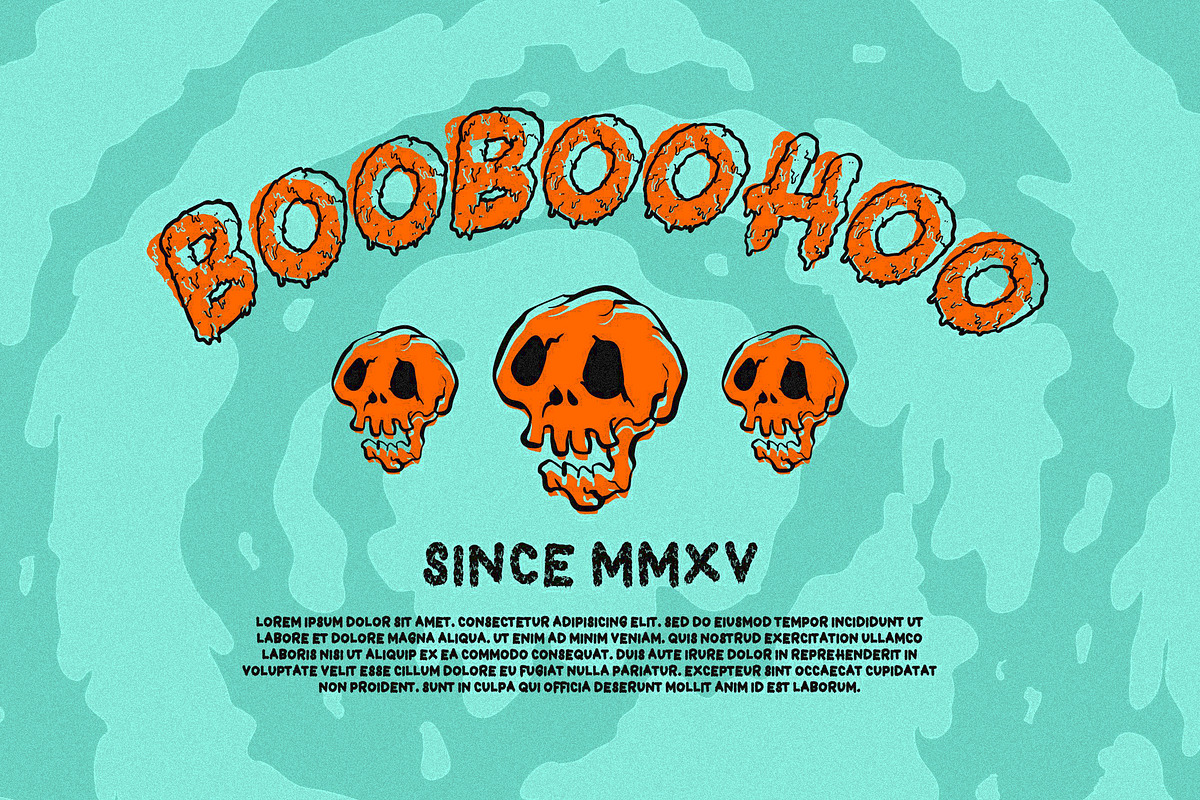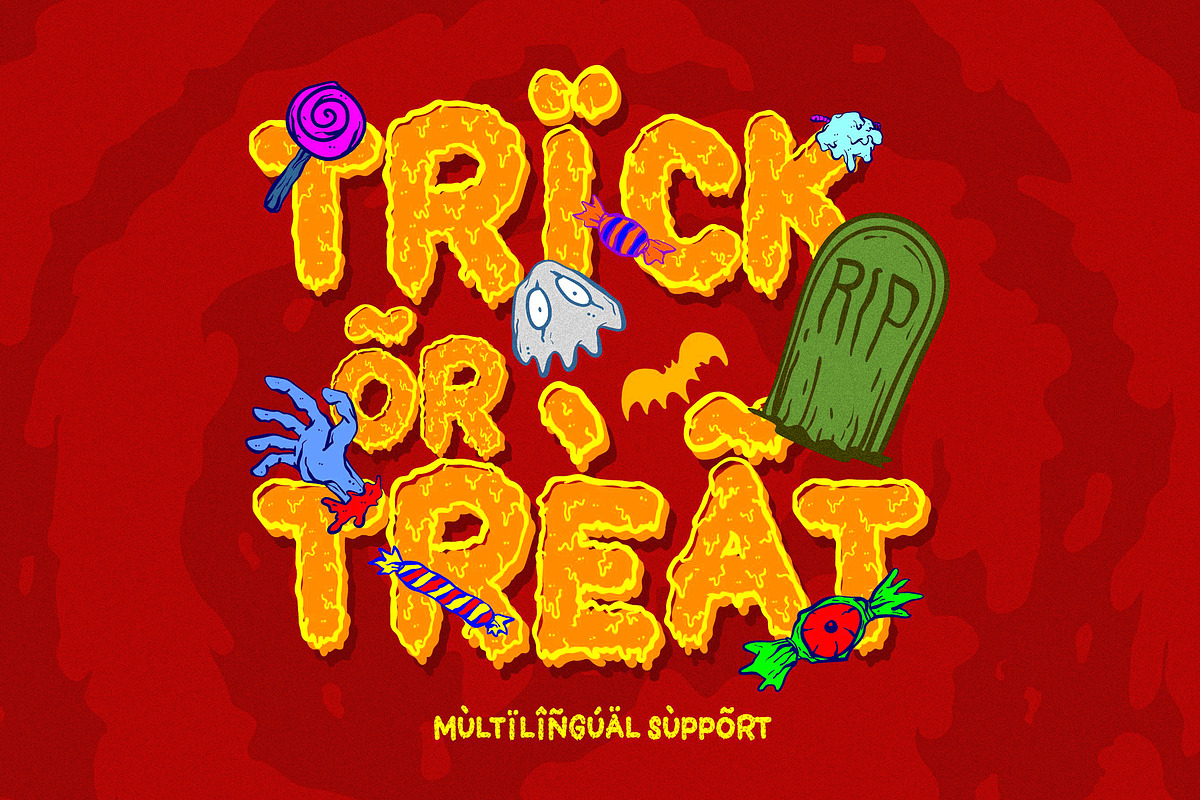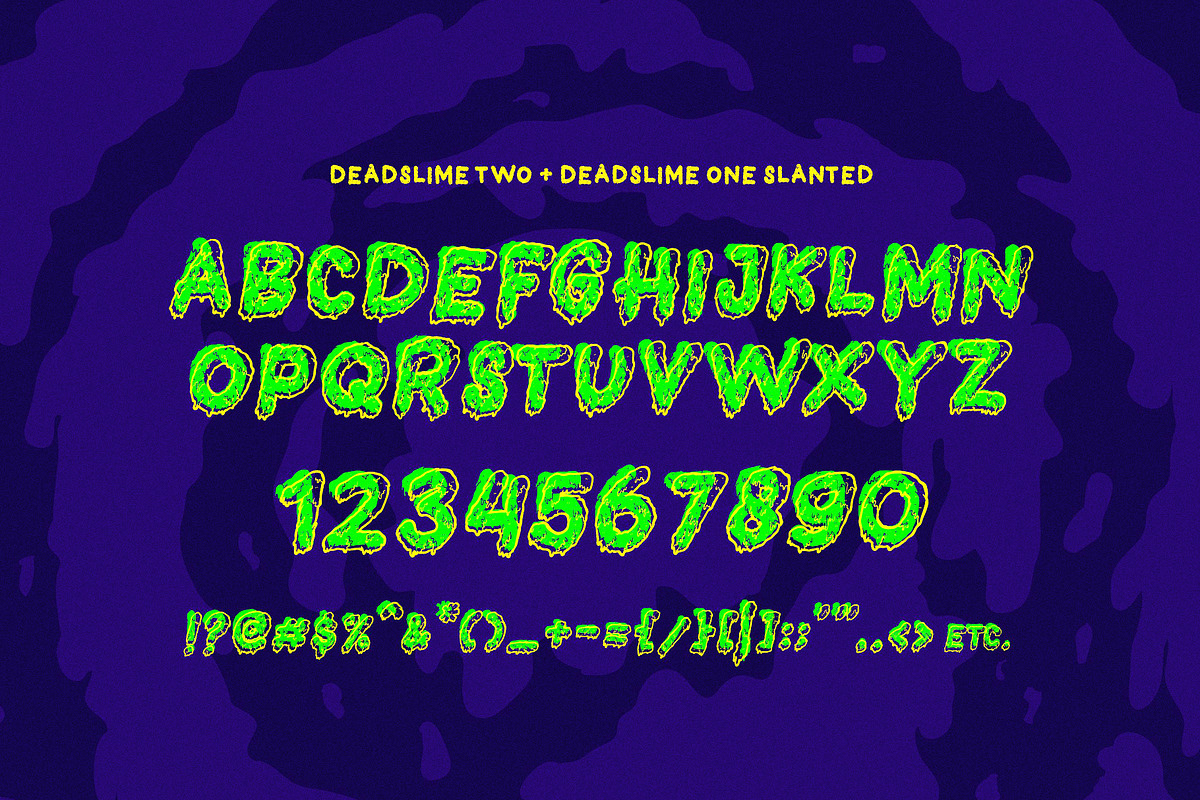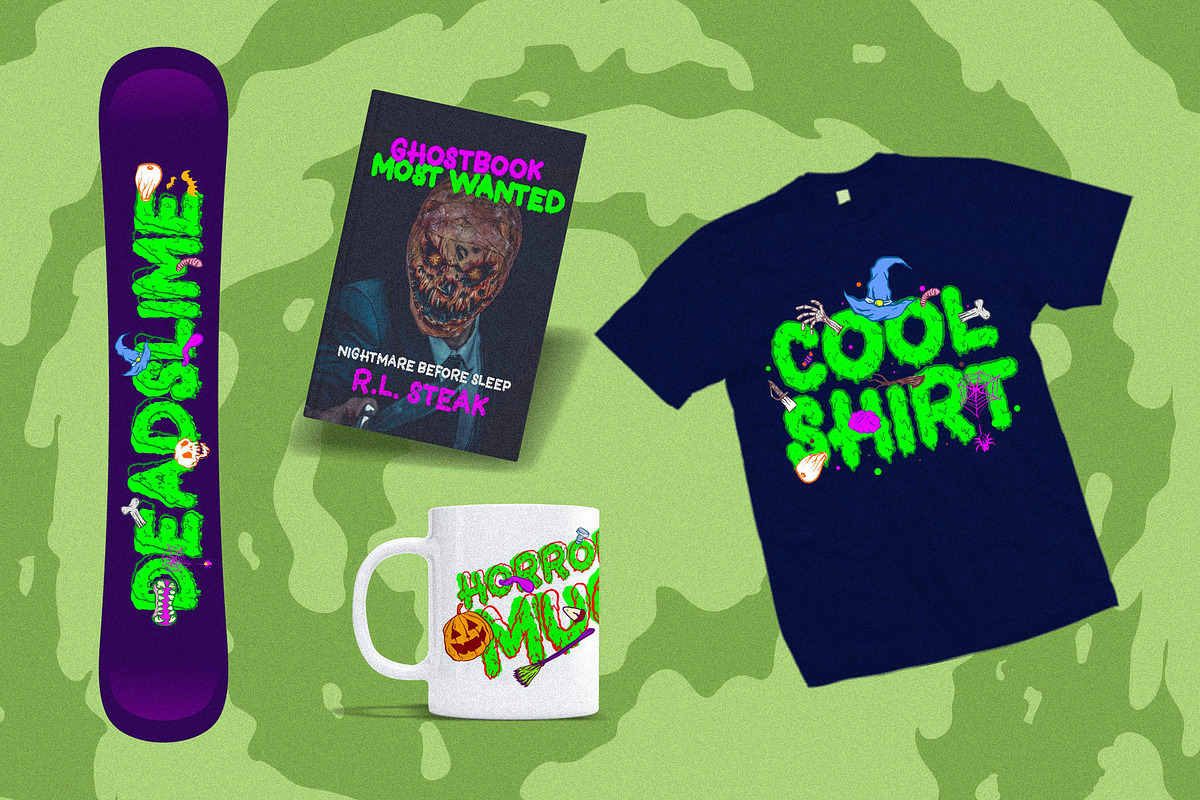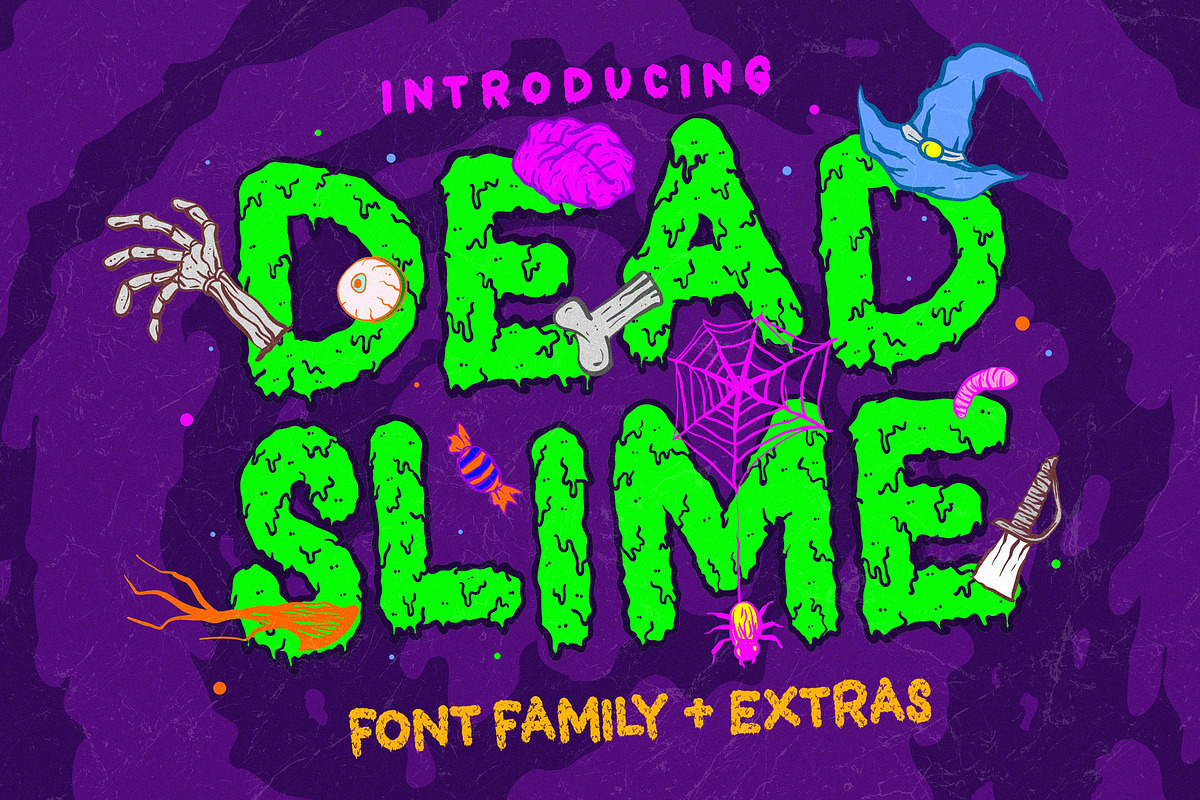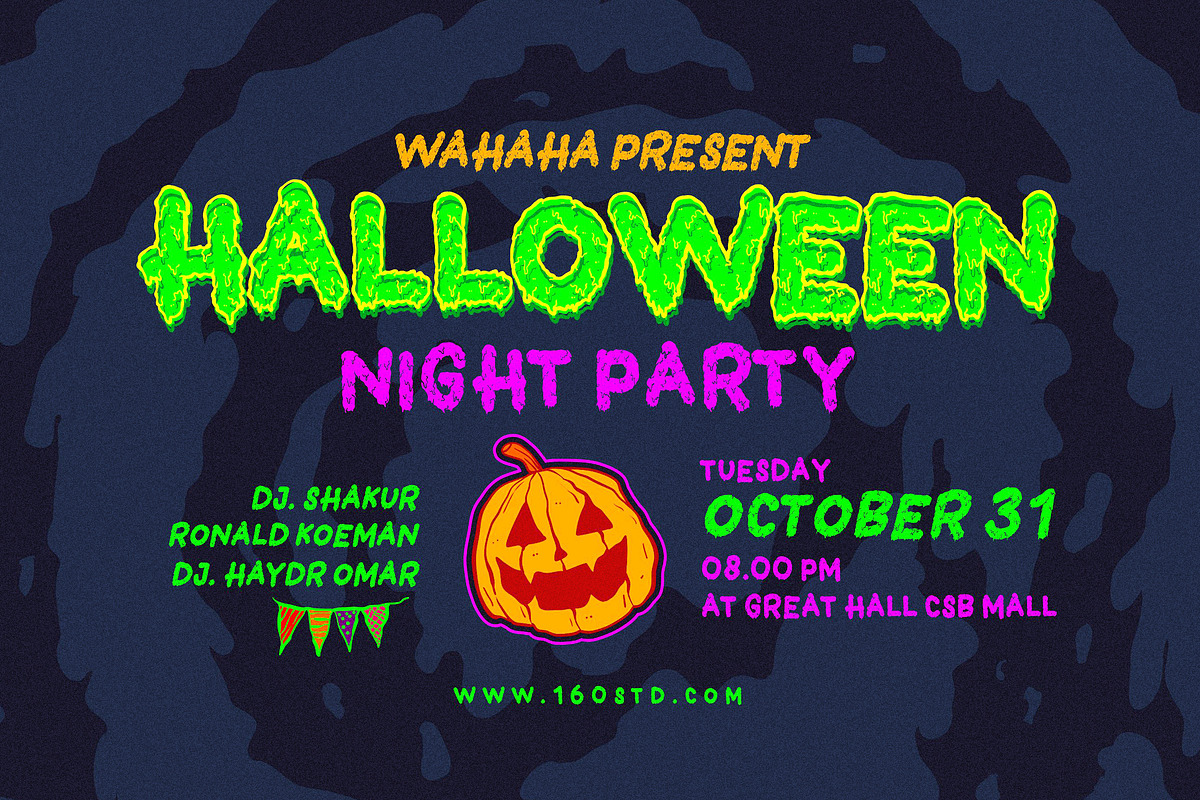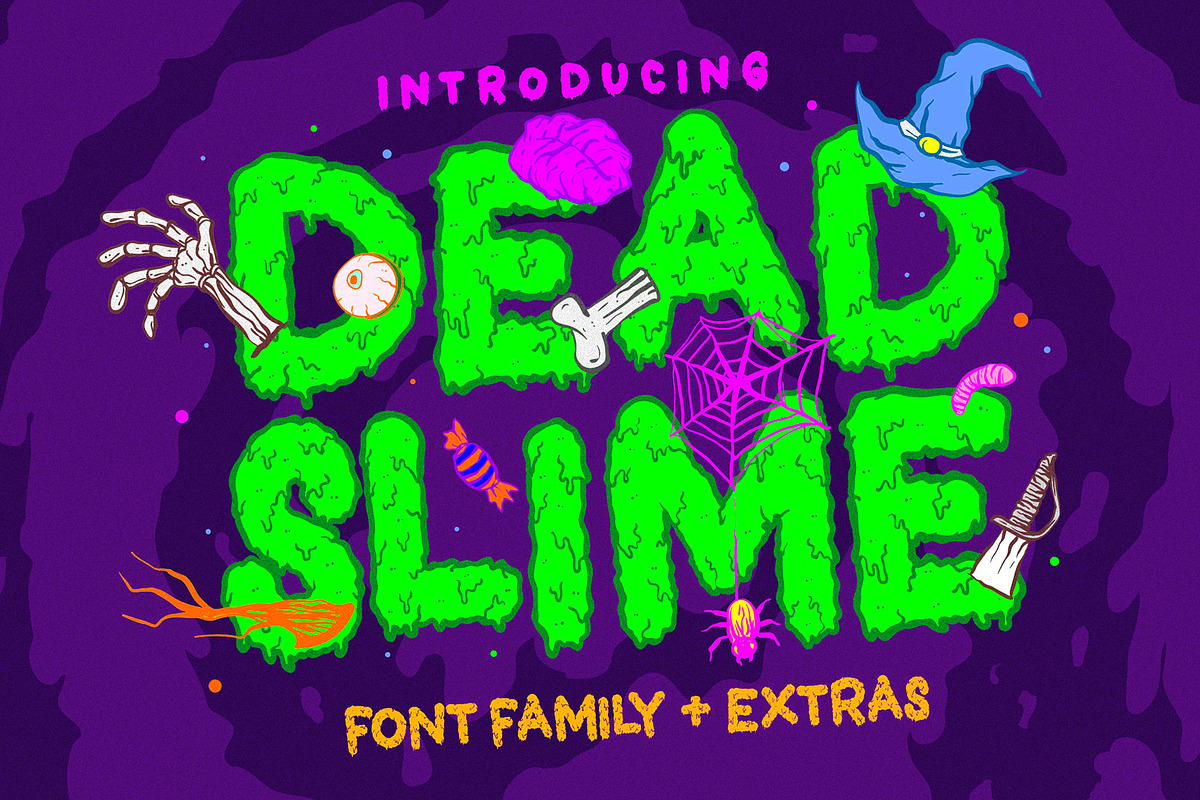
Dead Slime Font + Extras
Bring your horror project into the next level!!!
comes in 6 variation font, choose or combine to get perfect layer style font for you!
- Dead Slime ONE Regular
- Dead Slime ONE Slanted Regular
- Dead Slime THREE Regular
- Dead Slime THREE Slanted Regular
- Dead Slime TWO Regular
- Dead Slime TWO Slanted Regular